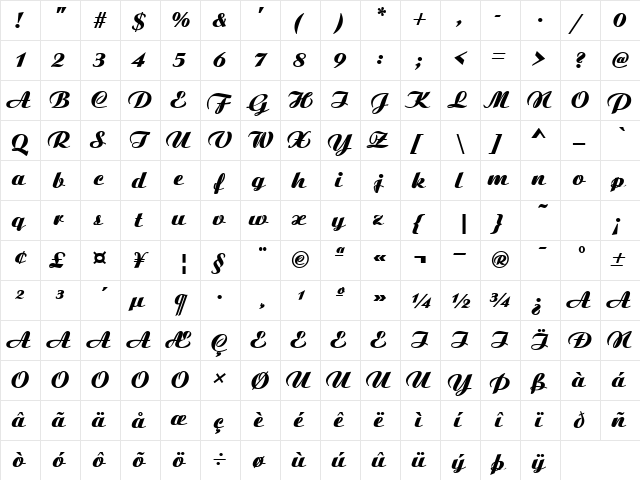
CandiaScriptBlackSSK Bold
Design Context for CandiaScriptBlackSSK Typeface
CandiaScriptBlackSSK flows with the natural rhythm of handwritten lettering, making it ideal for designs that call for warmth and personal expression. The heavy weight commands attention and anchors typographic hierarchies.
Font Pairing: Combine CandiaScriptBlackSSK with a simple geometric sans for maximum contrast — the tension between flowing curves and clean structure is a classic typographic pairing.
Pro Tip: Use CandiaScriptBlackSSK for short runs of text — names, titles, or taglines. Extended body copy in script faces tires the eye quickly.